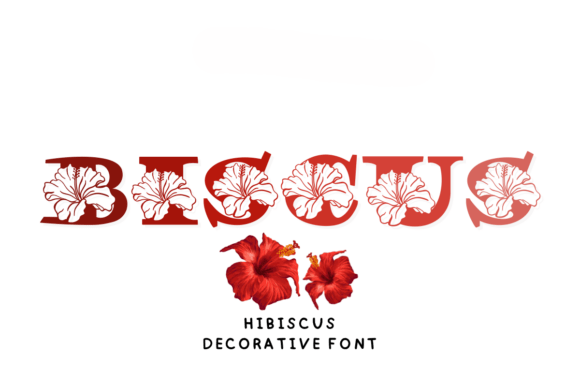
Biscus Font: Elevate Your Design Game with this Charming Decorative Font
In the world of design, fonts play a crucial role in conveying messages, expressing emotions, and capturing attention. Among the numerous font styles available, Biscus Font stands out as a unique and creative decorative font that can add a personal touch to your everyday tasks. In this article, we’ll explore the features, benefits, and uses of Biscus Font, and how it can revolutionize your design realm.
What is Biscus Font?
Biscus Font is a decorative font designed to spark creativity and inspire imagination. Its charming and elegant style makes it perfect for a wide range of design applications, from diary entries and greeting cards to social media posts and personalized gifts.
Unleash Your Creativity with Biscus Font
Biscus Font is more than just a font – it’s a tool that can transform your design experience. With its unique flair, you can:
- Write from the heart: Use Biscus Font to jot down your thoughts, feelings, and reflections in a diary or journal.
- Create stunning greeting cards: Add a personal touch to your cards and make them stand out with Biscus Font.
- Compose engaging social media posts: Use Biscus Font to craft attention-grabbing headlines, captions, and quotes that resonate with your audience.
- Design trendy apparel and accessories: Print Biscus Font on t-shirts, mugs, and other items to give them a distinctive look.
Benefits of Using Biscus Font
Biscus Font offers several benefits that make it a valuable addition to your design toolkit:
- Unique and creative style: Biscus Font adds a touch of elegance and sophistication to your designs.
- Versatile: Use Biscus Font in various design applications, from digital to print.
- Easy to read: Despite its decorative nature, Biscus Font remains clear and legible, making it perfect for body text and captions.
- Customizable: Experiment with different colors, sizes, and styles to match your brand’s identity.
Design Tips and Tricks for Using Biscus Font
To get the most out of Biscus Font, follow these design tips:
- Pair with complementary fonts: Combine Biscus Font with sans-serif or serif fonts to create visual interest.
- Use contrasting colors: Experiment with contrasting colors to make your text stand out.
- Play with sizes and styles: Vary the size and style of Biscus Font to create a visually appealing design.
- Keep it simple: Don’t overdo it – balance Biscus Font with negative space and clean design elements.
Find Inspiration with Biscus Font
Biscus Font can inspire you to create something truly special. Here are some ideas to get you started:
- Quote posters: Use Biscus Font to create stunning quote posters that inspire and motivate.
- Personalized gifts: Add a personal touch to gifts, such as mugs, t-shirts, and phone cases.
- Social media graphics: Create engaging social media graphics, such as Facebook posts, Instagram stories, and Twitter headers.
- Wedding stationery: Use Biscus Font to create beautiful wedding stationery, including invitations, menus, and place cards.
Biscus Font is a versatile and creative decorative font that can elevate your design game. With its unique flair, versatility, and ease of use, Biscus Font is perfect for designers, artists, and writers looking to add a personal touch to their work. Whether you’re designing for digital or print, Biscus Font is a valuable tool that can help you create stunning and effective designs.